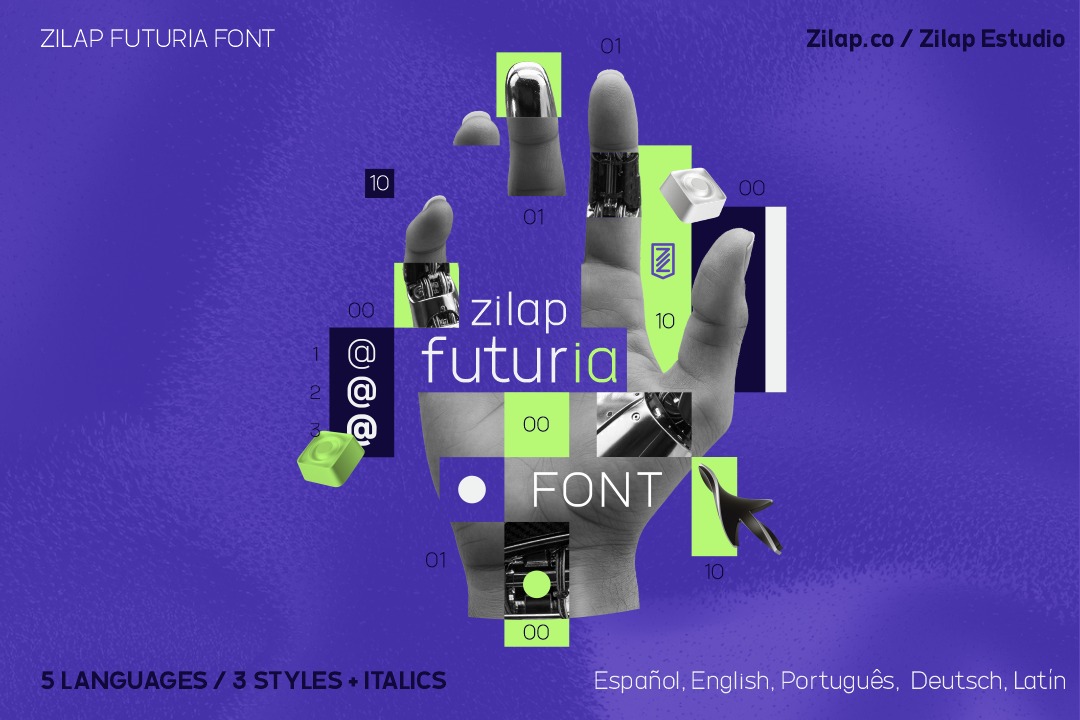
Zilap Futuria Font
Zilap Futuria Font is a clean and thoughtfully built typeface that works seamlessly for both professional branding and everyday creative uses. Zilap Futuria is a modern geometric-humanist sans serif font designed by ZILAP ESTUDIO – ZP, first released in August 2025. It includes five styles (Bold Italic, Regular, Italic, Light, and Light Italic) with full character sets and is praised for its balanced proportions, smooth curves, and excellent readability across sizes and formats. This versatile typeface is ideal for digital projects seeking a clean, contemporary look with a hint of warmth and technological flair.